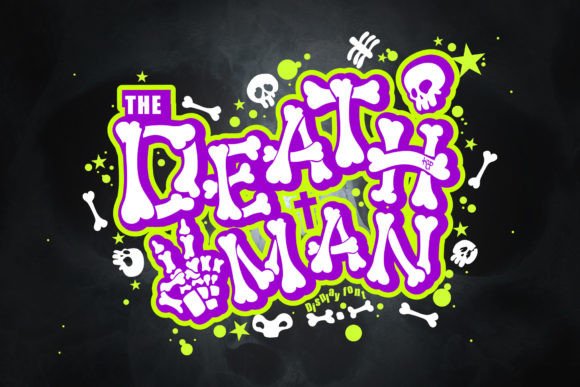
Unleash the haunting charm of Death Man Font into your creative arsenal, and cast a spellbinding presence that will leave your audience spellbound! Immerse yourself in the eerie beauty of this decorative font, meticulously crafted by KtwoP to evoke the captivating essence of Halloween.
With Death Man Font, you'll orchestrate an enchanting symphony of visual aesthetics, entrancing your audience with its spooky aura. Its meticulously designed glyphs and ligatures are PUA encoded, granting you effortless access to a realm of captivating possibilities.
Elevate your logos, posters, and social media designs with the spine-tingling allure of Death Man Font. Its haunting elegance will send shivers down their spines, leaving an indelible impact that lingers long after they've encountered your creations.
Embrace the dark allure of Death Man Font and embark on an artistic journey like no other. Let your creativity run wild as you weave tales of mystery and intrigue, capturing the essence of the Halloween spirit in every stroke of your design.
The possibilities are endless with Death Man Font. Unleash your imagination and craft designs that dance on the edge of reality and the supernatural. Transport your audience to a realm of haunting beauty, leaving them spellbound by the captivating charm of this extraordinary font.